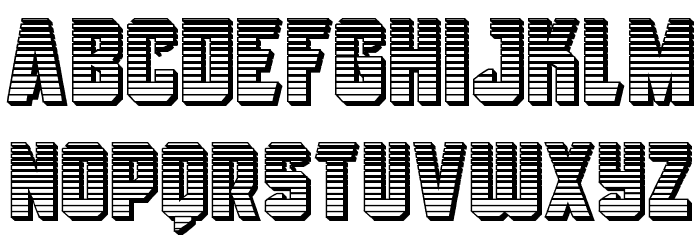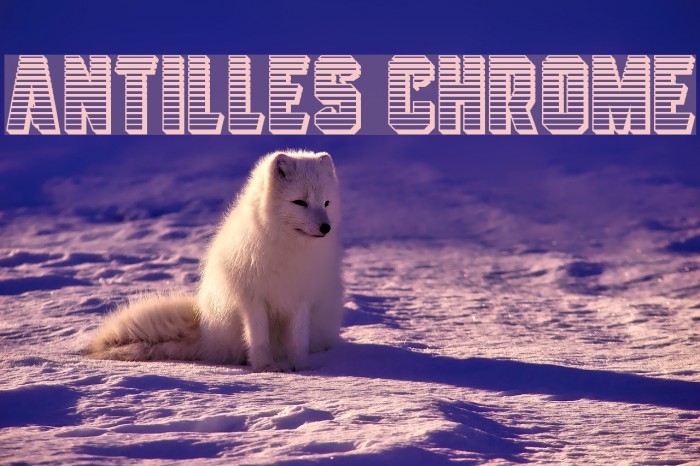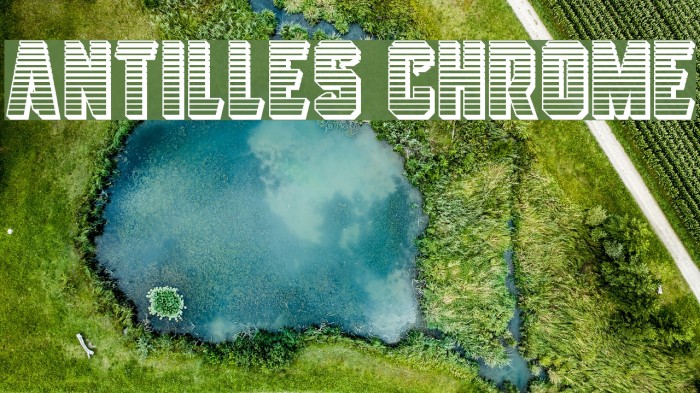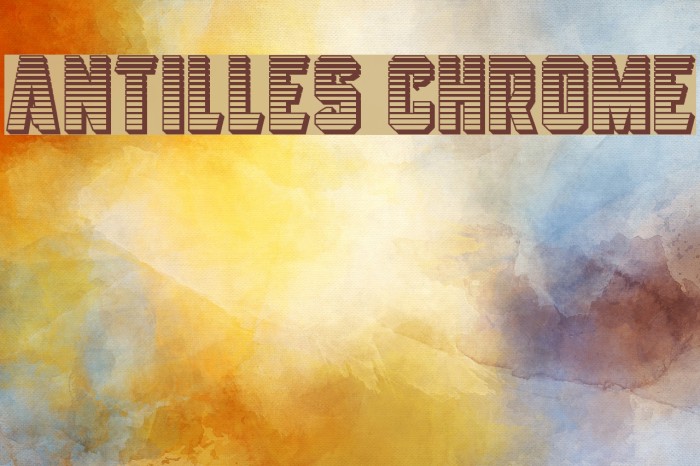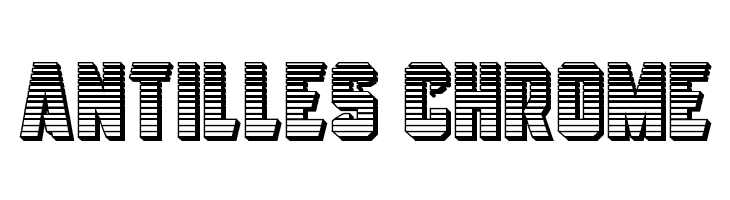
Antilles Chrome Font
This font features a bold, three-dimensional design with a chrome-like appearance. Each character is constructed with horizontal stripes that create a layered effect, giving the illusion of depth. The uppercase and lowercase letters maintain a consistent style, with sharp angles and clean lines that enhance the futuristic and industrial aesthetic. The numbers and special characters follow the same design principles, ensuring uniformity across all glyphs. The font's unique style makes it stand out, ideal for projects that require a strong visual impact.
A bold, 3D chrome-like font with horizontal stripes and a futuristic aesthetic.
- Proposed Projects: Ideal for logos, posters, video game titles, and any design requiring a strong, futuristic look.